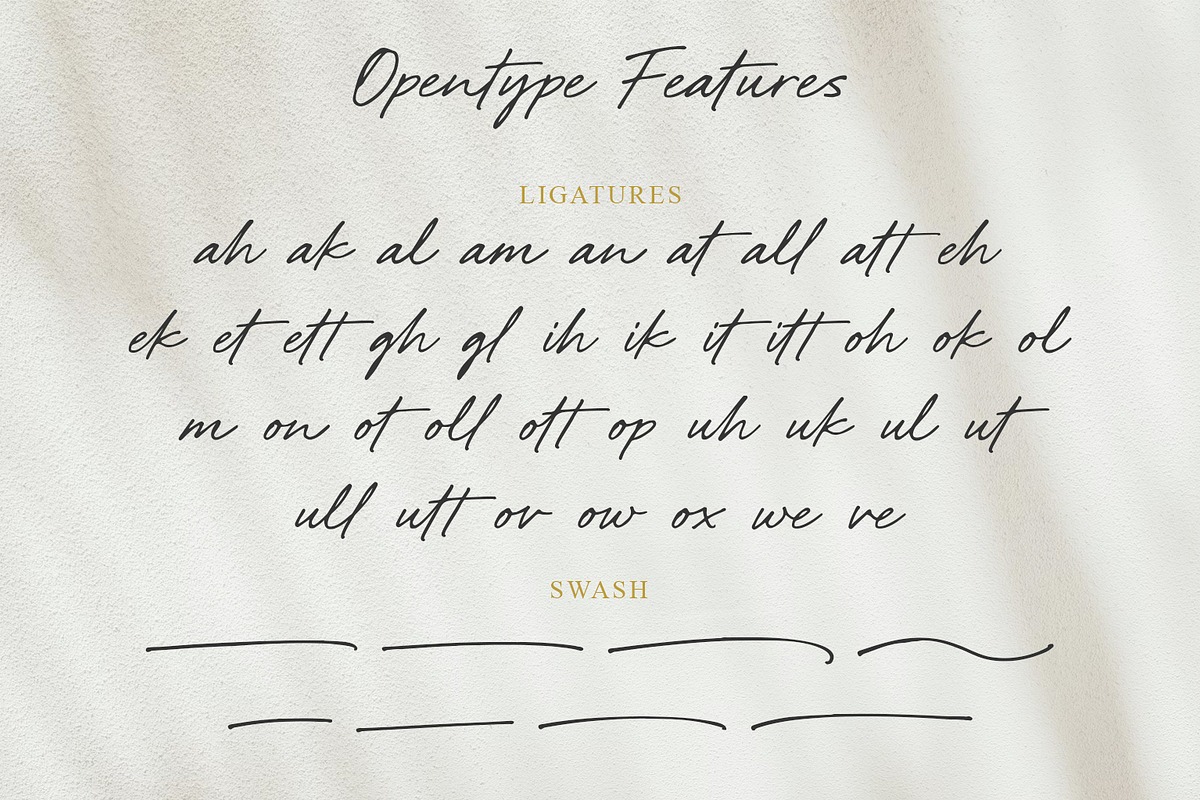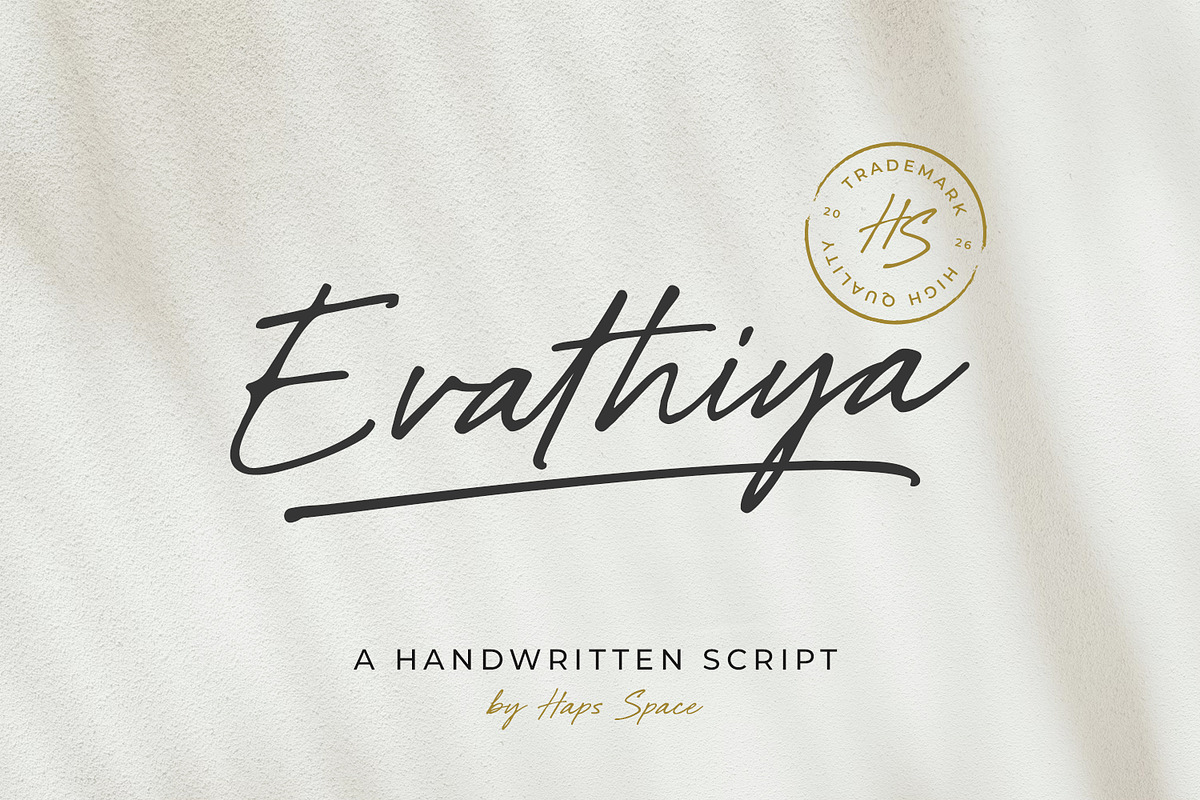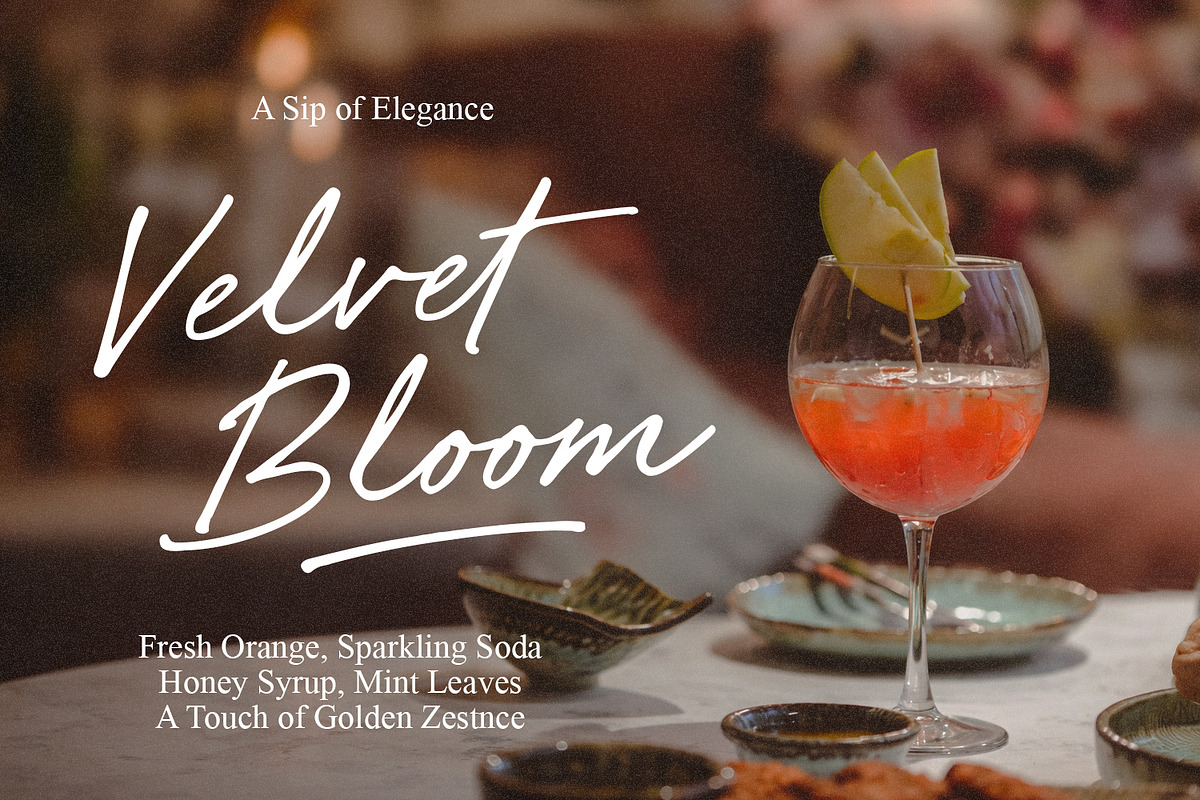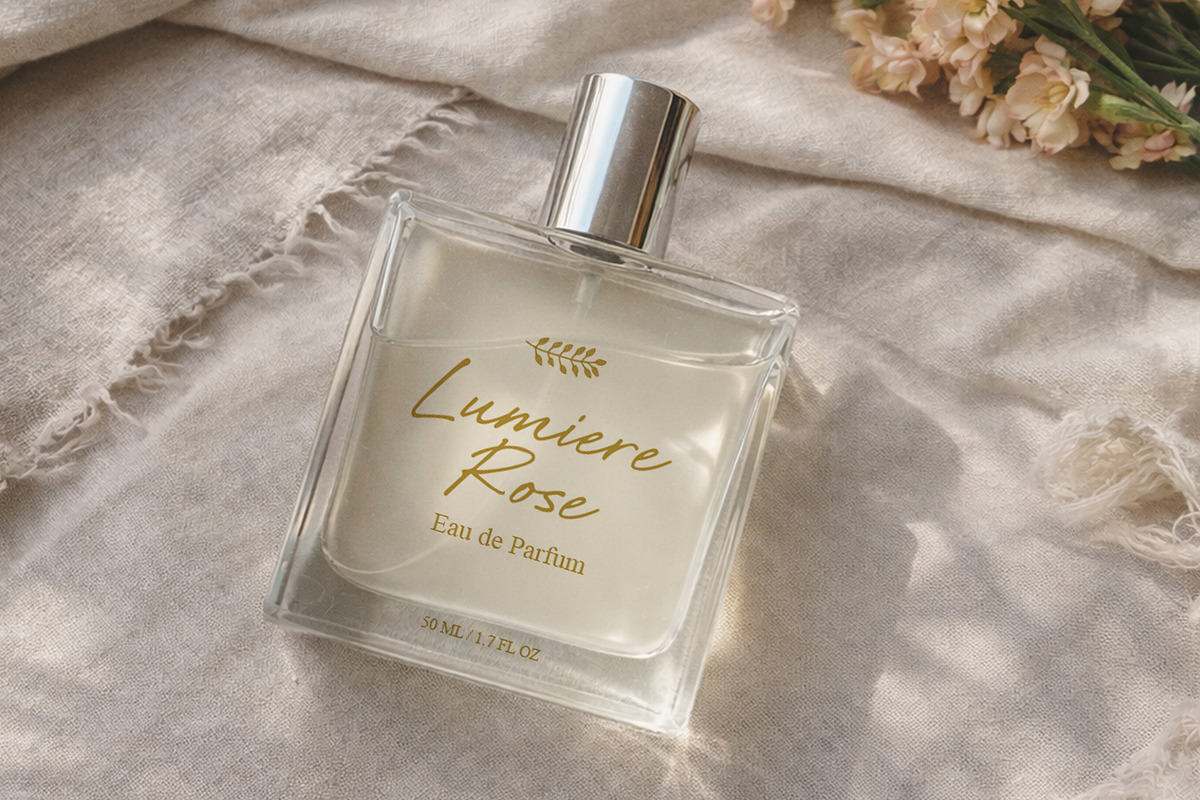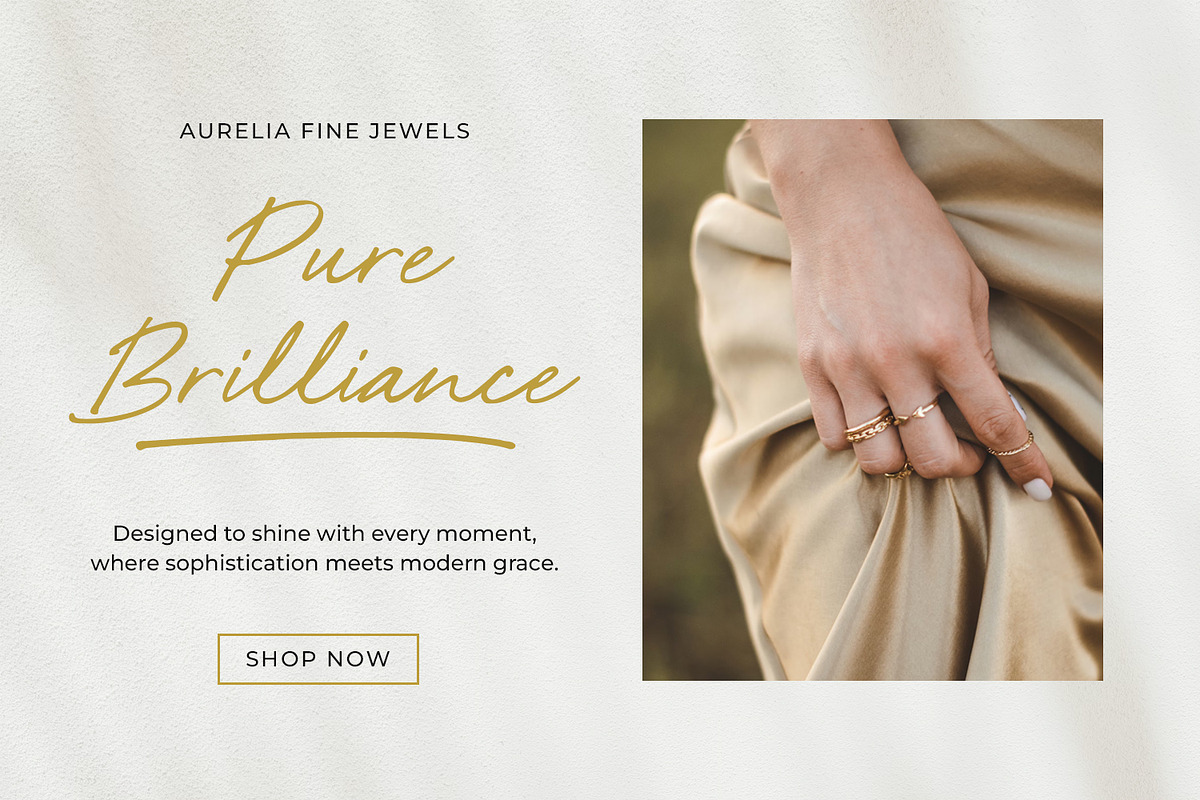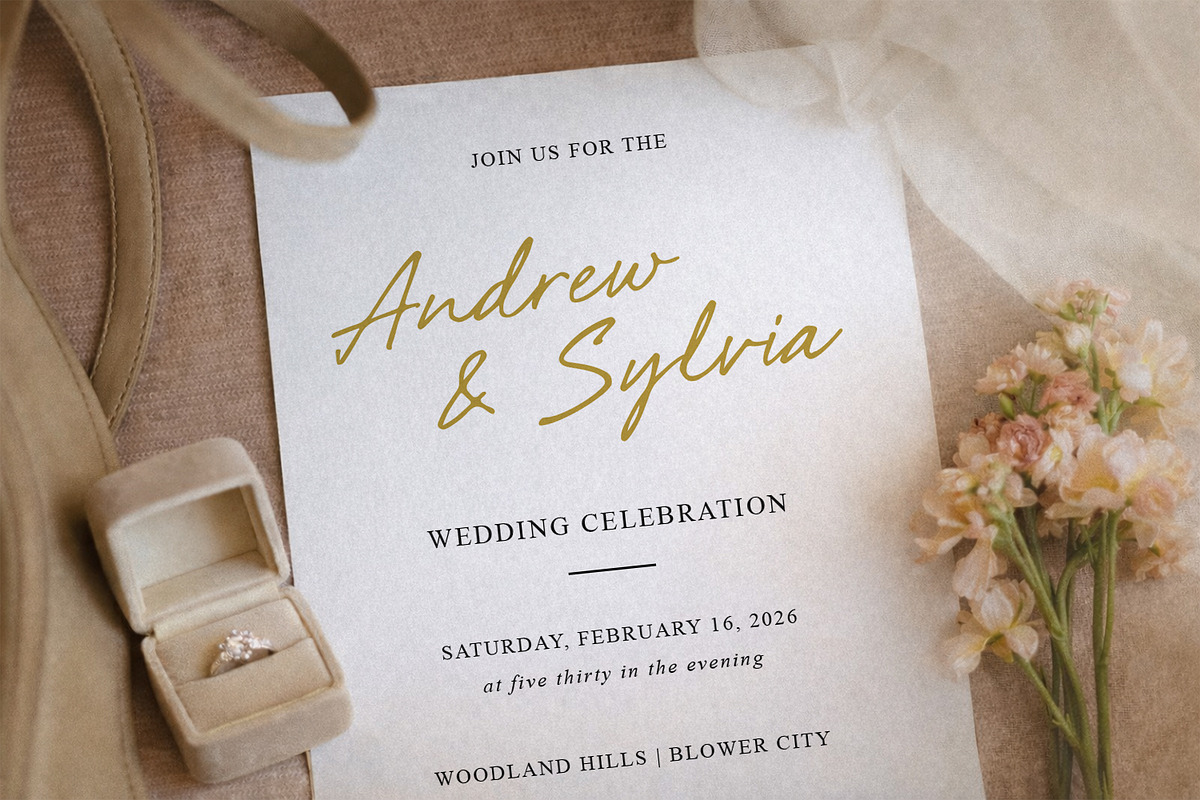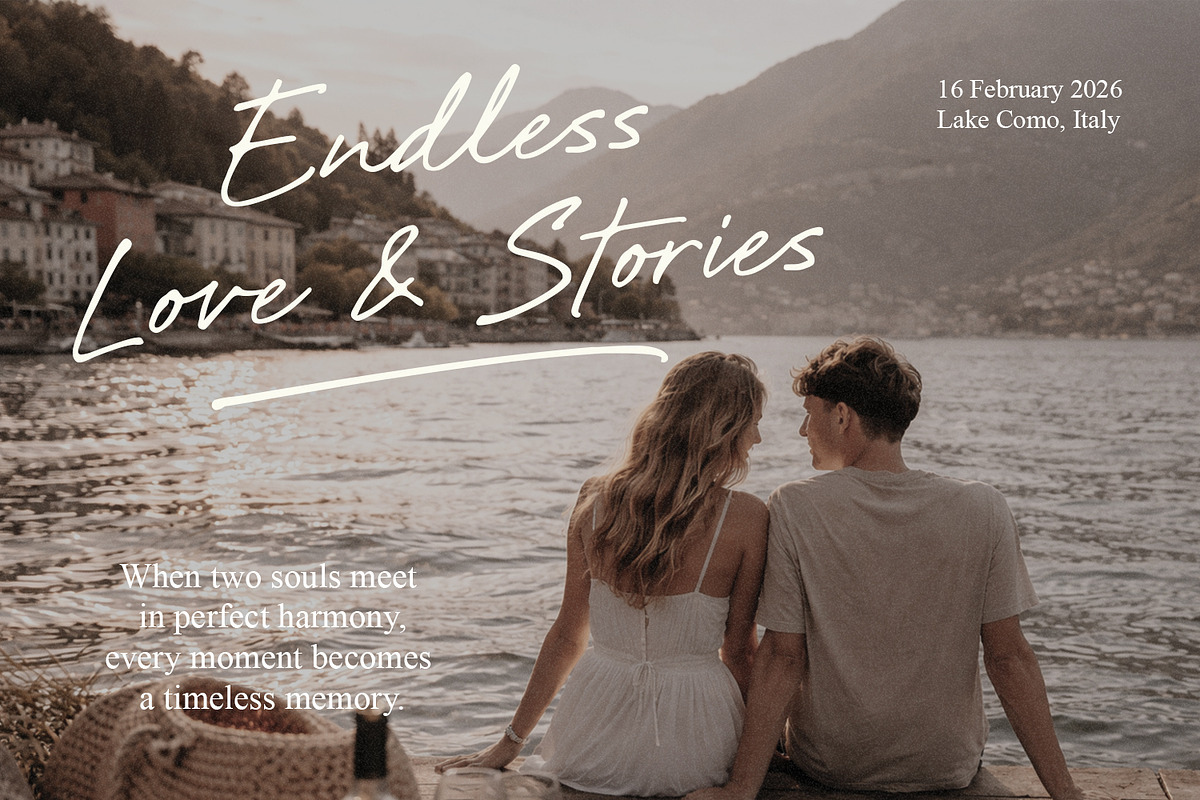
Evathiya Natural & Authentic
Evathiya is a beautifully crafted handwritten script font that captures the effortless flow of real penmanship. With its slightly textured edges and rhythmic strokes, this font brings a warm, personal touch to any creative project, making it feel less like a digital asset and more like a hand-signed masterpiece.
Designed for versatility, Evathiya excels in branding projects that require an organic and approachable personality. Whether you are creating elegant wedding invitations, custom logos, or stylish social media quotes, this font provides a natural "signature" feel that resonates with a modern, lifestyle-oriented audience.
- Authentic Hand-Drawn Feel: Mimics natural pen pressure for a realistic look.
- Versatile Aesthetic: Works perfectly for both minimalist and high-energy designs.
- Organic Flow: Seamless connections between characters for a professional finish.
- Ideal for Branding: Perfect for logos, signatures, and lifestyle merchandise.
* OpenType features such as ligatures and alternates